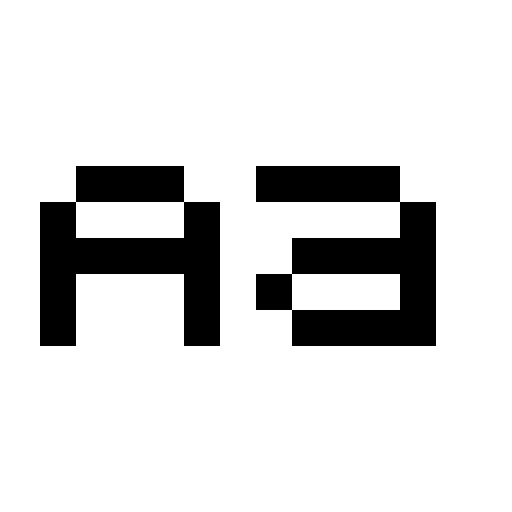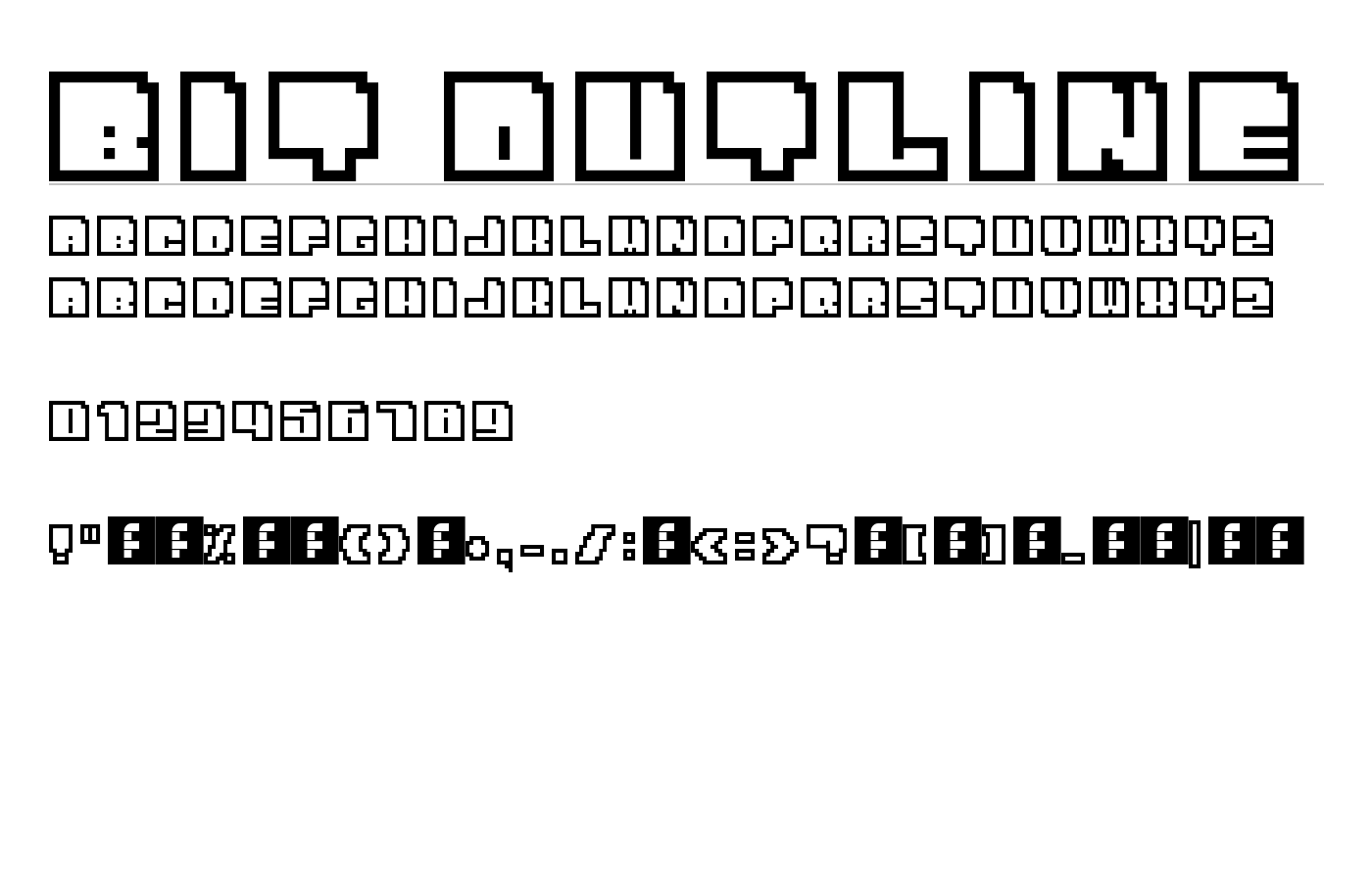
Bit Outline Font is a bold, pixel-inspired sans serif typeface with a geometric, blocky design that features a distinctive outlined style. Its strong, square shapes and consistent stroke width give it a digital, retro gaming feel, making it ideal for playful, tech-focused branding and eye-catching headlines. This font works especially well in digital media, posters, and logos where a modern yet nostalgic aesthetic is desired.
Bit Outline Font
About Bit Outline Font